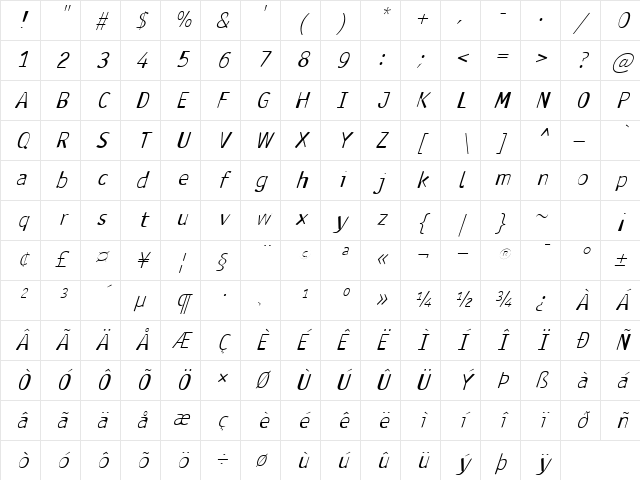
Antaviana Italic Free Font
Antaviana Italic
Antaviana Family
Design Context for Antaviana
Antaviana is a composed and adaptable typeface that performs quietly and consistently across a wide range of design contexts. The slanted form adds forward momentum and visual energy.
Pro Tip: Use Antaviana for emphasis, pull quotes, and subheadings where its slanted energy can add rhythm to the layout.